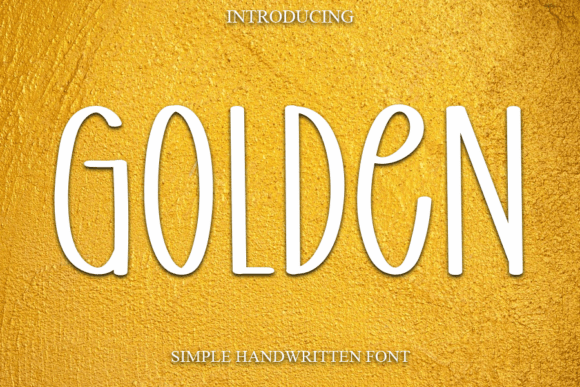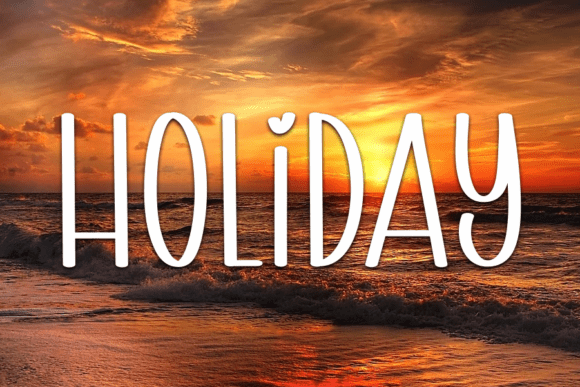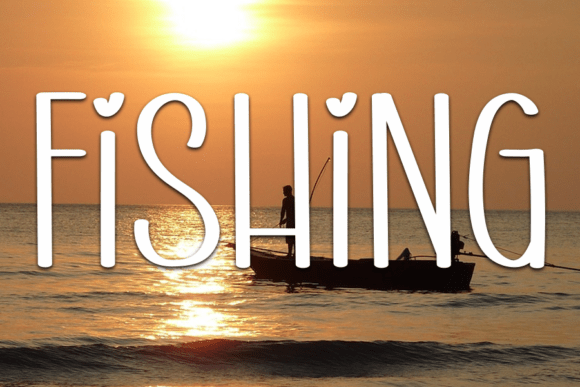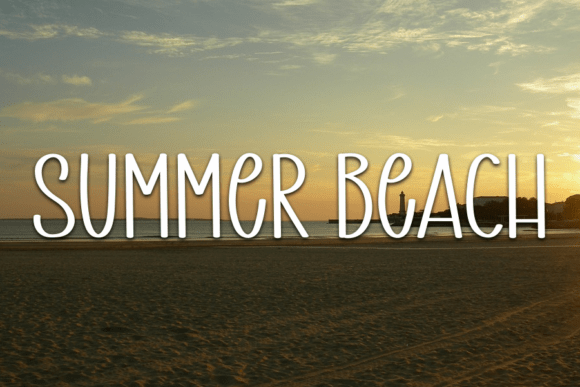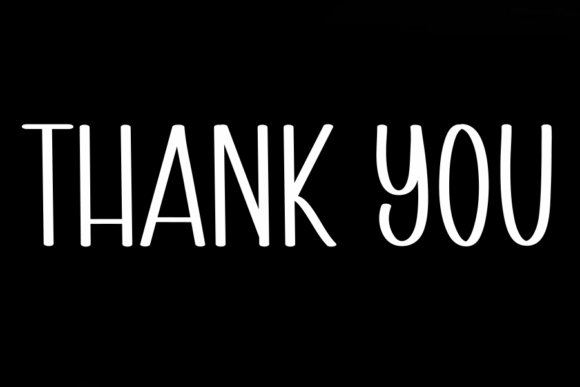
The Perfect Script for Your Next Masterpiece
Have you ever found yourself in the midst of a creative frenzy, pouring your heart and soul into a project, only to realize that something is missing? For designers, this can be a frustrating experience, but it’s also an opportunity to explore new ideas and discover the perfect tool to bring your vision to life. For me, this moment came when I stumbled upon the Golden Font, a simple yet versatile handwritten font that has been a game-changer in my design process.
The Golden Font is designed to add a touch of natural elegance to any project, making it perfect for greeting cards, headlines, and more. Its simplicity and versatility make it a valuable asset for designers who want to create unique and engaging content. Whether you’re working on a personal project or a professional assignment, the Golden Font is sure to elevate your design and leave a lasting impression.
Golden Font Key Features
- Font Family: Golden Font is a sans-serif font family, designed to evoke a sense of luxury and sophistication.
- Unique Characteristics: The Golden Font features a unique blend of modern and classic design elements, with subtle rounded edges and a distinctive x-height.
Golden Font Review
I recently had the chance to work with the Golden Font and I must say it’s been a mixed experience. While it has some great qualities, it also has some limitations that might make it less desirable for certain projects.
- The Golden Font is a great choice for adding a touch of luxury and sophistication to a design. Its elegant lines and subtle shine make it perfect for high-end brands and products.
- The font is highly customizable, allowing designers to adjust the size, color, and style to suit their needs.
- It’s also quite versatile, working well in both digital and print formats.
- The font can be quite busy, especially when used in large blocks of text. This can make it difficult to read and may require additional design elements to break up the text.
- It may not be the best choice for projects with a more casual or playful tone, as it can come across as too formal or stuffy.
- The font also has some compatibility issues with certain operating systems and browsers, which can cause display problems.
Overall, I think the Golden Font is a great choice for designers who want to add a touch of luxury and sophistication to their projects. However, it’s not a one-size-fits-all solution, and designers should carefully consider the limitations and potential issues before using it. With some careful planning and design, the Golden Font can be a beautiful and effective addition to a project.
Use the Golden Font to create visually appealing headings and titles in your Canva designs.
Use the Golden Font to add a touch of elegance to your vector graphics and digital artwork.
Use the Golden Font to create professional-looking presentations and documents.
Tips for Getting the Most Out of the Golden Font
Use the Golden Font sparingly to create a sense of luxury and sophistication.
Pair the Golden Font with a contrasting background color to make it stand out.
The Golden Font is perfect for:
High-end branding and marketing materials
Formal presentations and reports